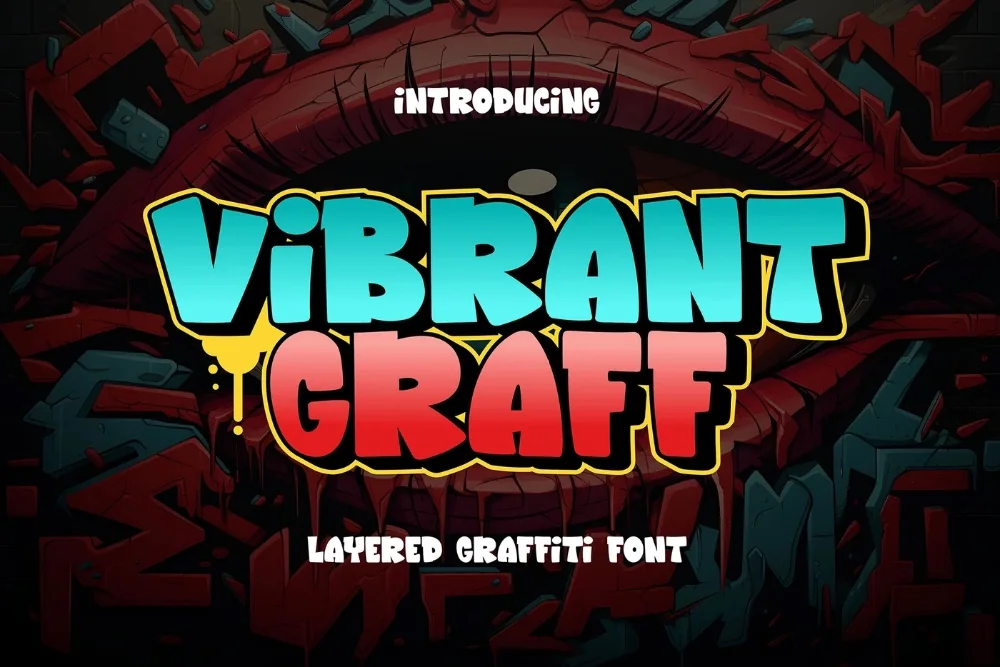
Vibrant Color Pop Graffiti Font
Every collection needs a colorful graffiti font that can carry a whole layout on its own. This is that font. Multi-layer letters built for bright, clashing colour combinations. Comes alive the moment you push the saturation.
Each character is composed of separated layers — fill, outline and offset — so you can colour them independently for a full piece look. The base shapes are simple to keep the layers from fighting.
Ideal for festival branding, kids' products, sportswear graphics, and colourful packaging.
Pair it with something quiet. A plain sans for body copy lets the lettering do its job instead of fighting the paragraph underneath it for attention.